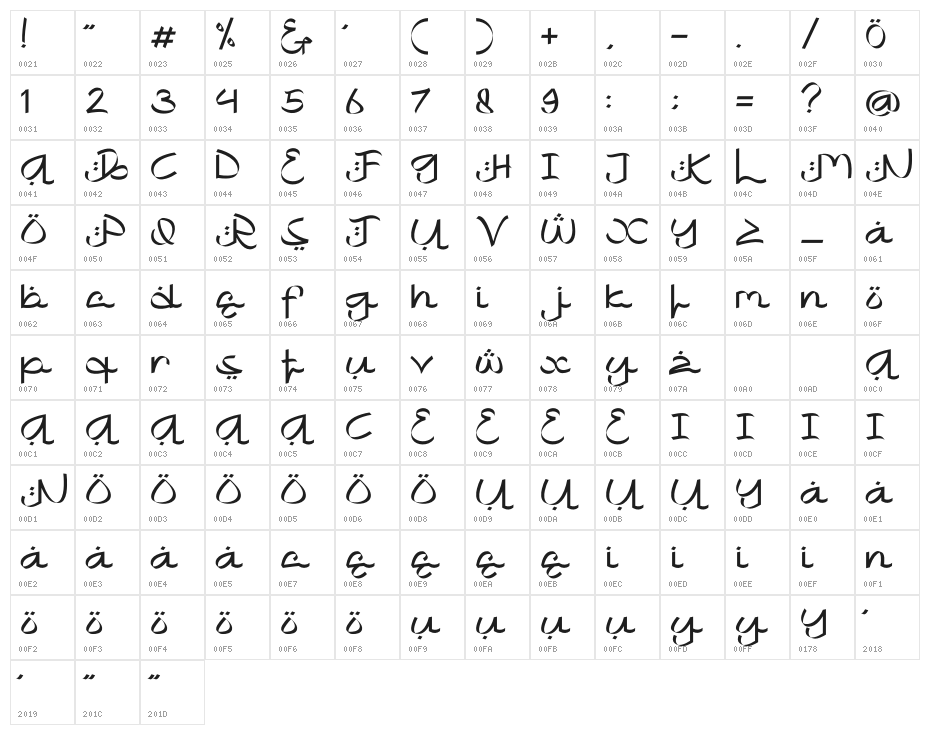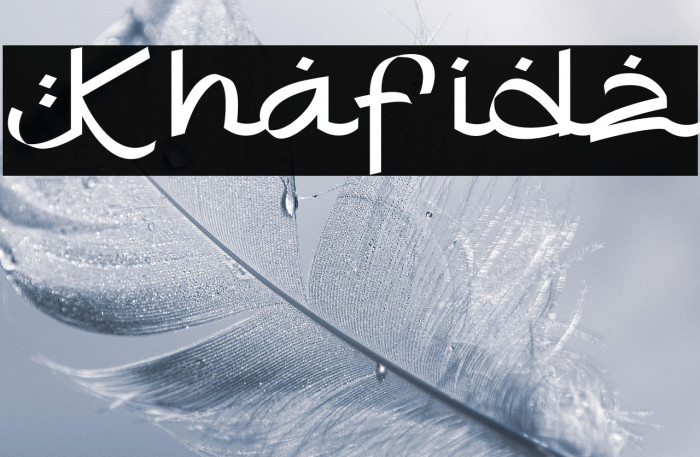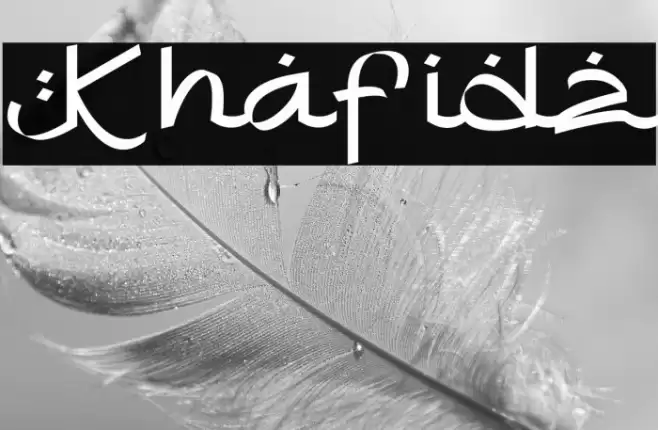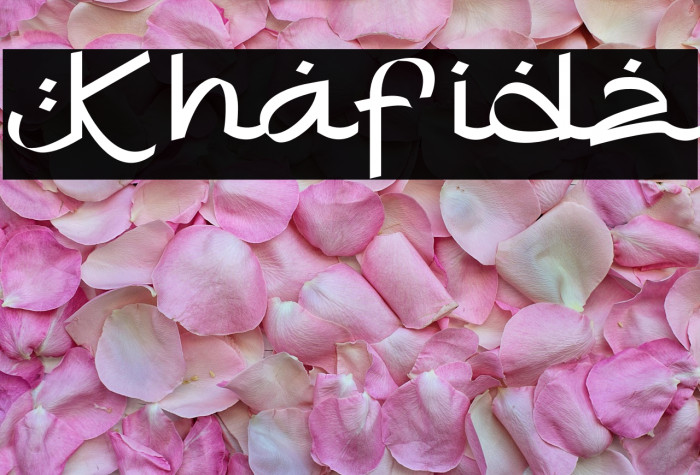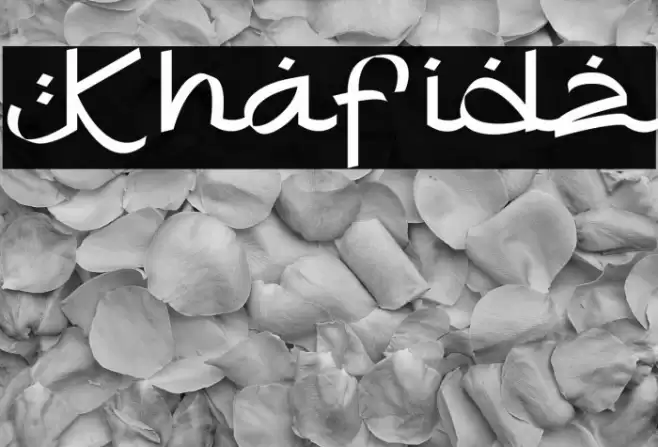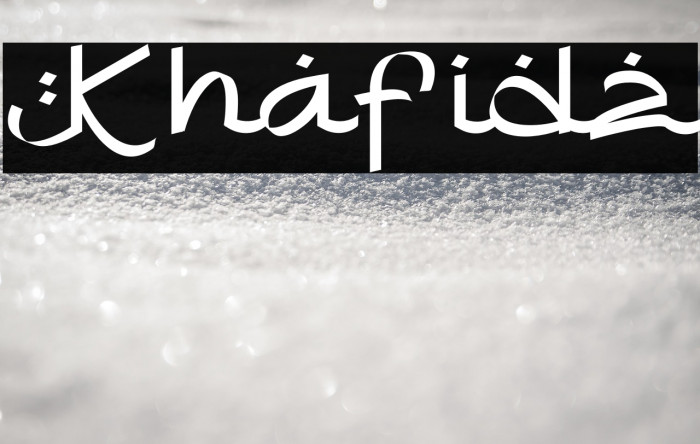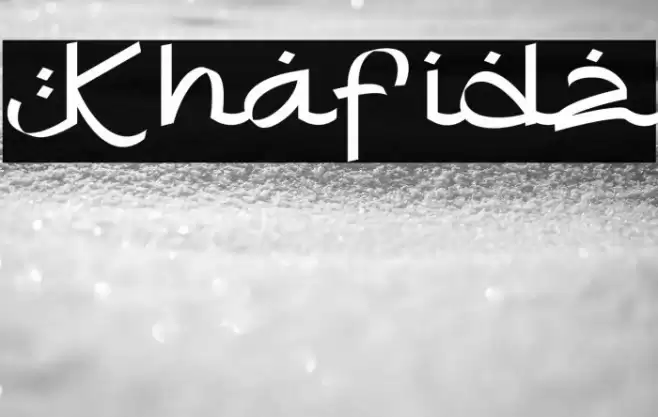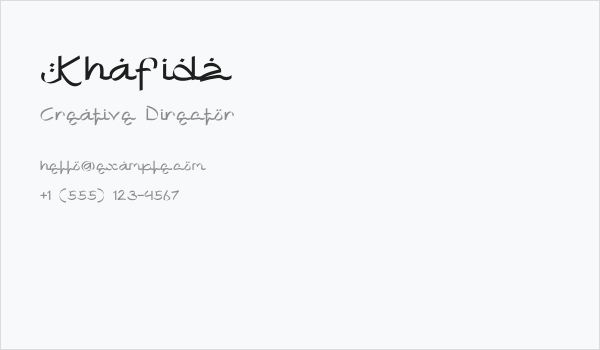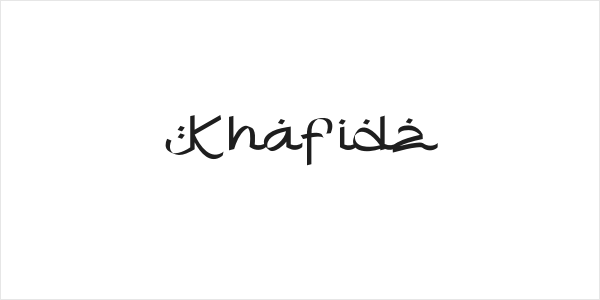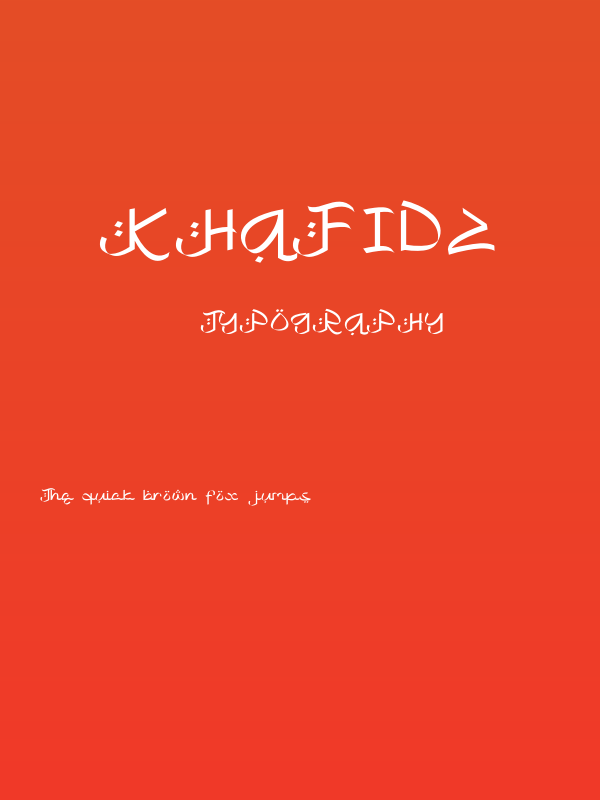
Khafidz Font
Khafidz Description
This font features a unique blend of modern and decorative elements, characterized by its flowing, cursive-like strokes and distinctive diacritical marks. The uppercase letters are bold and expressive, with a playful use of dots and curves that add a whimsical touch. The lowercase letters maintain a consistent style, offering a smooth and elegant appearance. Numbers are bold and clear, ensuring readability. Special characters are creatively designed, adding to the font's overall artistic flair. This font's style is both eye-catching and versatile, making it suitable for a variety of creative projects.
| Overall Style | Modern, Decorative |
| Use Case | Logos, Headlines, Artistic projects |
| Proposed Projects | Ideal for branding, invitations, artistic posters, and creative digital content. |